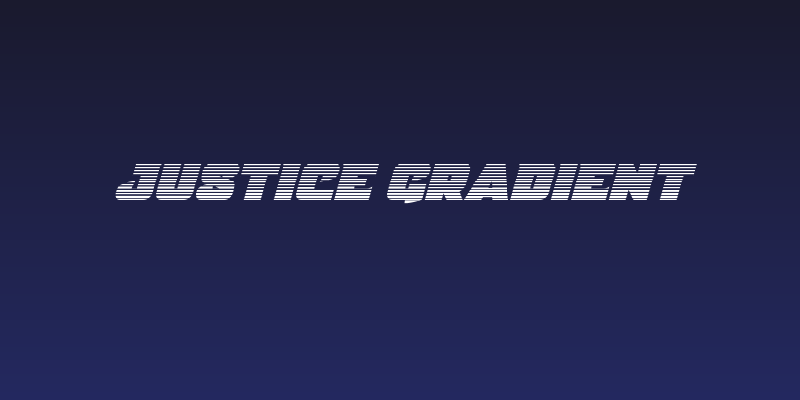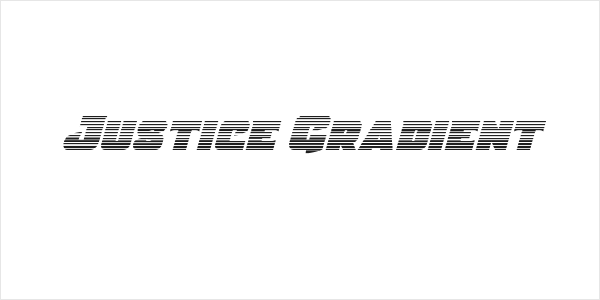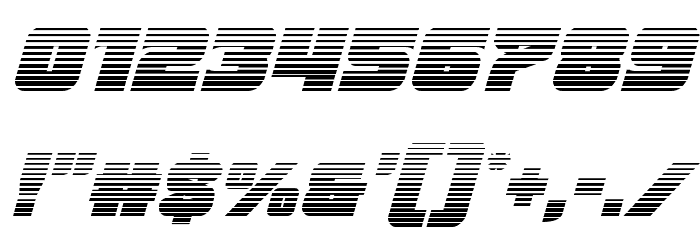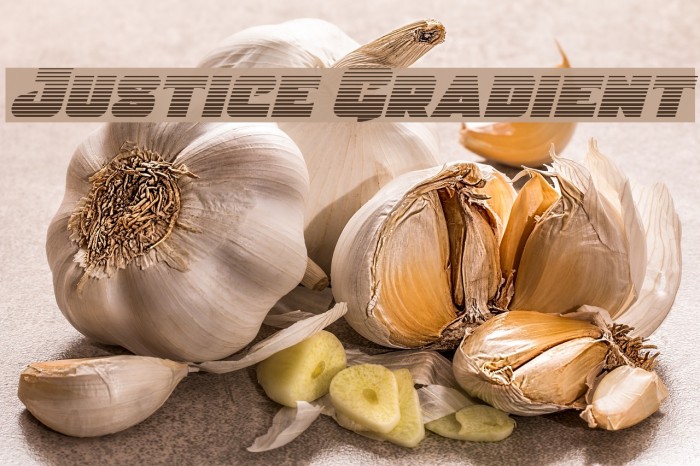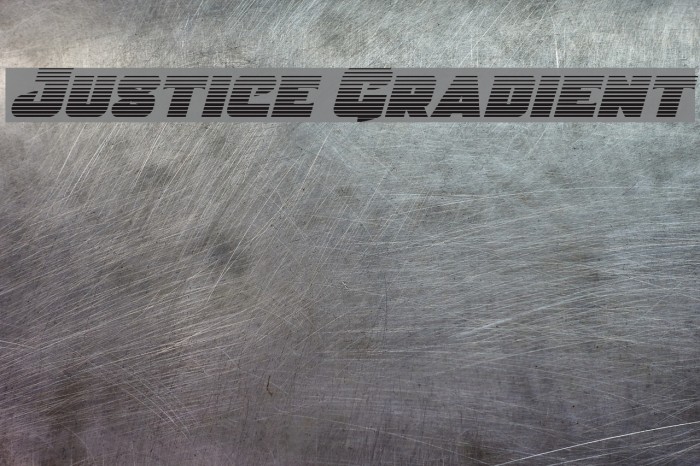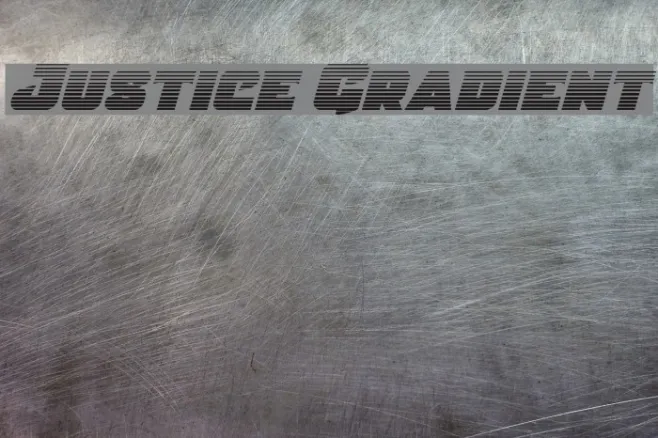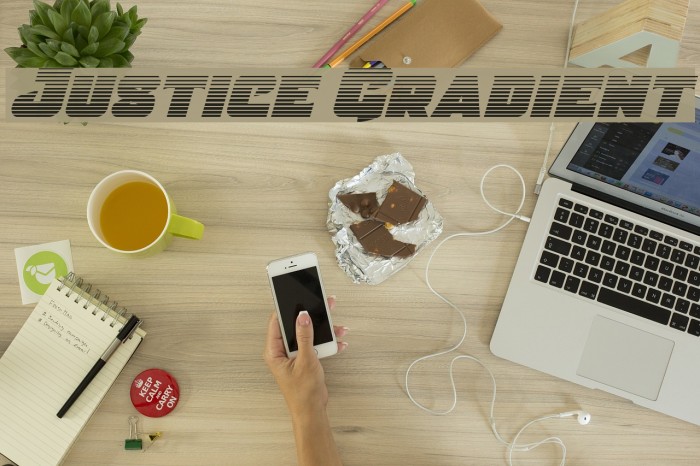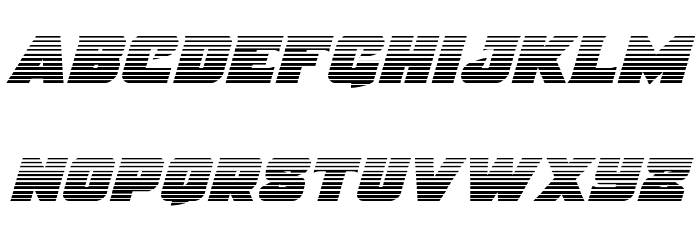
Justice Gradient Font
Justice Gradient Description
This font features a bold, dynamic design with a distinct gradient effect created by horizontal lines running through each character. The uppercase and lowercase letters, as well as numbers and special characters, maintain a consistent style that emphasizes movement and energy. The font's unique appearance makes it stand out, with each character appearing as if it's in motion, thanks to the striped pattern. This design choice gives the font a modern and futuristic feel, suitable for projects that require a strong visual impact.
| Proposed Projects | Ideal for sports branding, futuristic designs, posters, and any project needing a bold, energetic typeface. |